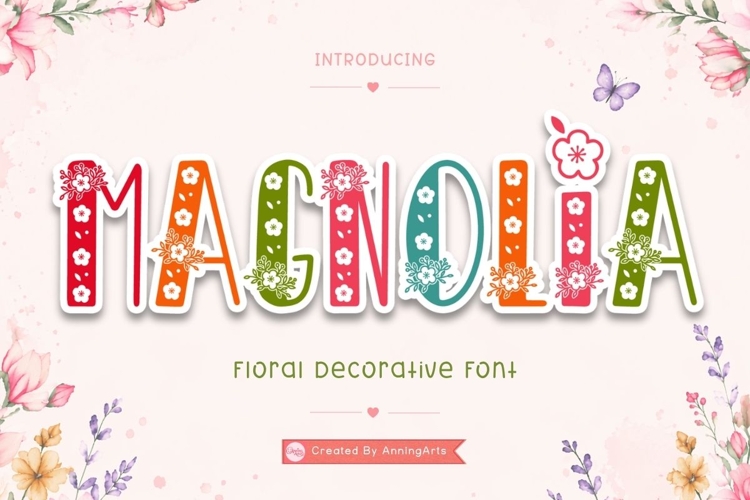
Magnolia is a beautiful floral decorative font inspired by delicate blossoms and soft feminine designs. Each letter is thoughtfully decorated with tiny flowers, creating a charming and romantic look perfect for elegant and heartfelt projects.
This font is ideal for Mother’s Day designs, wedding invitations, greeting cards, tote bags, t-shirts, and any creative project that needs a soft floral touch. The playful yet elegant style makes your text stand out while still feeling gentle and lovely.